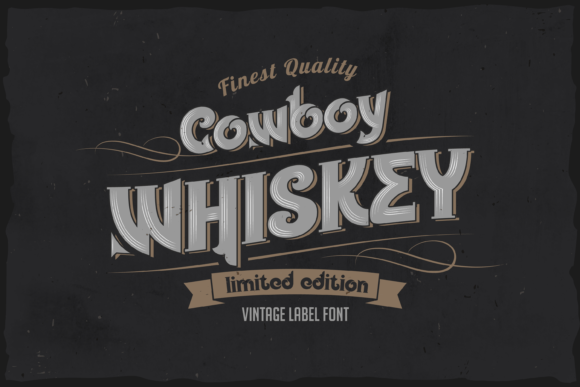
The Wild West of Typography: Unleashing the Charm of Cowboy Whiskey Font
As a designer, have you ever been captivated by the nostalgia of a vintage label or a weathered sign? The memories they evoke, the stories they tell, and the emotions they stir up. That’s exactly what inspired us to delve into the world of typography and discover the perfect font to capture that essence – the Cowboy Whiskey Font.
This stylish, vintage-label layer display font is the perfect companion for designers looking to add a touch of rugged charm to their projects. With intricate detailing and bold serifs, Cowboy Whiskey Font is ideal for creating eye-catching labels, posters, and signage that exude a sense of nostalgia and authenticity. Whether you’re working on a vintage-inspired design project or simply looking to add some grit to your next campaign, the Cowboy Whiskey Font is a valuable addition to your toolkit.
Cowboy Whiskey Font Key Features
- Font Family: Cowboy Whiskey Font is a unique, hand-drawn serif font designed to evoke the spirit of the American West.
- Unique Characteristics: Distinctive, hand-drawn design elements, such as rough textures and subtle imperfections, give the font a authentic, vintage feel.
Cowboy Whiskey Font Review
Cowboy Whiskey Font is a unique and attention-grabbing font that I’ve had the pleasure of working with. Here’s my honest review.
- Unique character set: The font has a distinctive, handwritten feel that’s perfect for adding a touch of personality to your designs.
- Good for titles and headings: The font’s bold lines and dramatic flair make it ideal for titles, headings, and other large text elements.
- Unique aesthetic: The font’s blend of modern and vintage elements gives it a one-of-a-kind look that’s sure to stand out.
- Readability: While the font is great for titles and headings, it can be difficult to read in smaller sizes due to its unique letterforms.
- Limited versatility: The font’s distinctive style may not be suitable for all types of designs, particularly those that require a more straightforward or modern look.
Overall, I think Cowboy Whiskey Font is a great choice for designers who want to add a touch of personality to their work. While it may not be the most versatile font, it’s perfect for projects that require a unique, attention-grabbing look.
The Cowboy Whiskey font is perfect for creating a rustic, country-inspired look. To get the most out of it, try using it in combination with distressed textures and earthy colors.
The Cowboy Whiskey font is commonly used for:
- Rustic wedding invitations and decor
- Country-themed branding and marketing materials
- Western-inspired artwork and graphics
Alternatives to Cowboy Whiskey Font
Playfair Display is a luxurious serif font that can be used for high-end branding, invitations, and special events. It’s ideal for adding a touch of elegance and sophistication to your designs.
Comparison to Cowboy Whiskey Font: While Cowboy Whiskey Font has a rustic, vintage feel, Playfair Display is more refined and sophisticated. If you’re looking for a font that exudes luxury and glamour, Playfair Display is a great alternative.
Pacifico is a beautiful script font that’s perfect for creating a relaxed, beachy vibe. It’s ideal for branding, packaging, and advertising campaigns that require a laid-back, casual feel.
Comparison to Cowboy Whiskey Font: While Cowboy Whiskey Font has a rugged, country feel, Pacifico is more laid-back and easy-going. If you’re looking for a font that captures the spirit of a beachside getaway, Pacifico is a great choice.
Great Vibes is a stylish script font that’s perfect for creating a fun, energetic vibe. It’s ideal for branding, advertising campaigns, and social media graphics that require a playful, youthful feel.